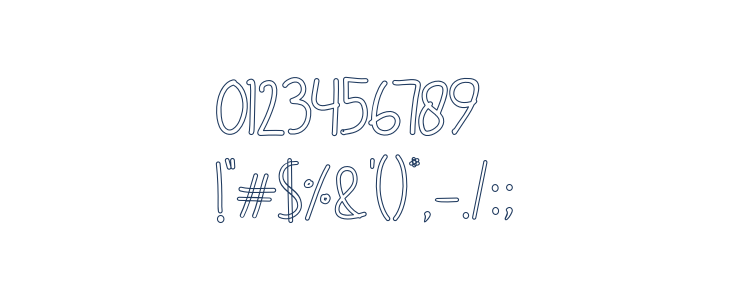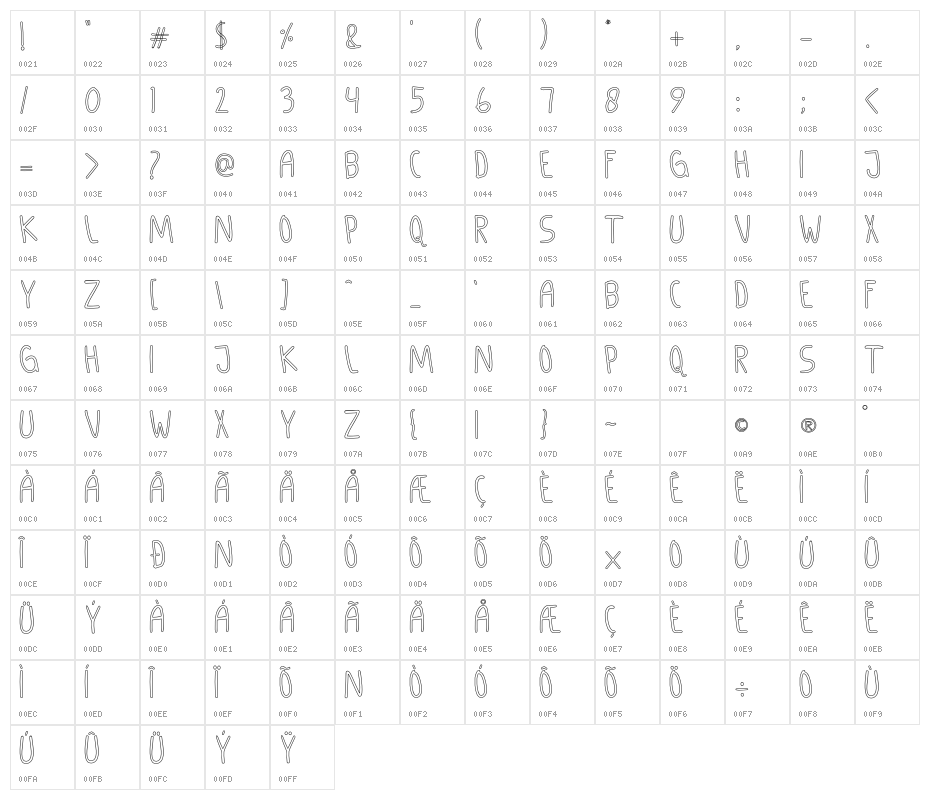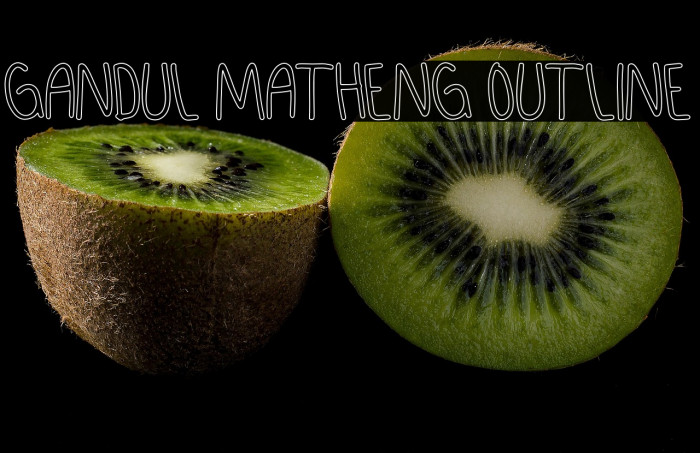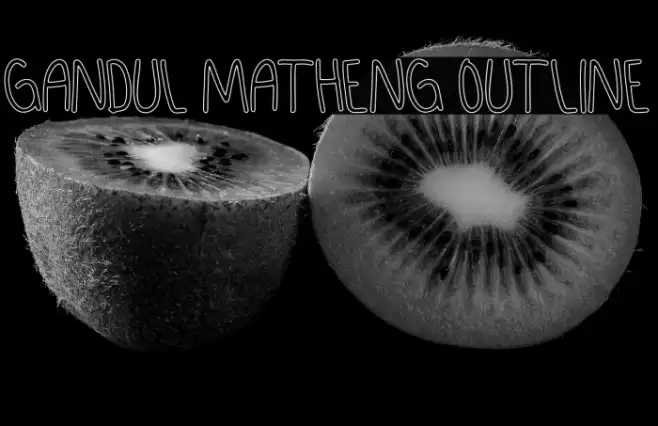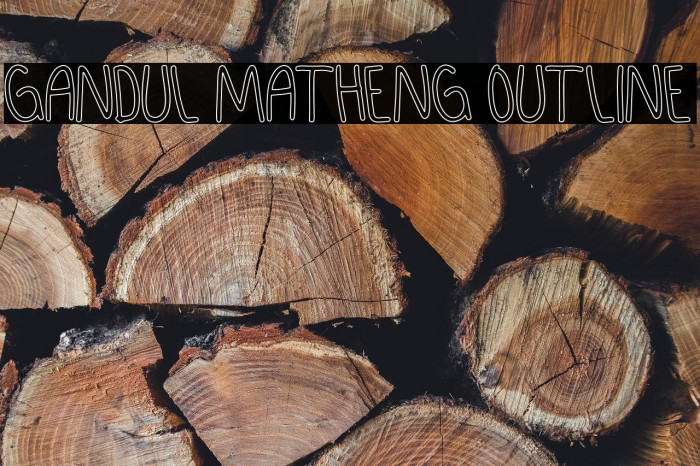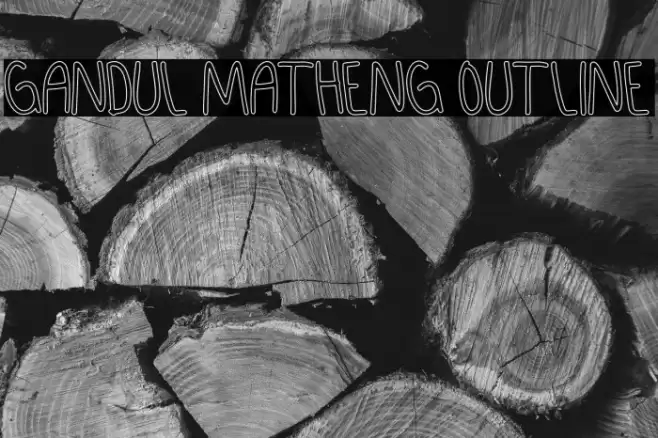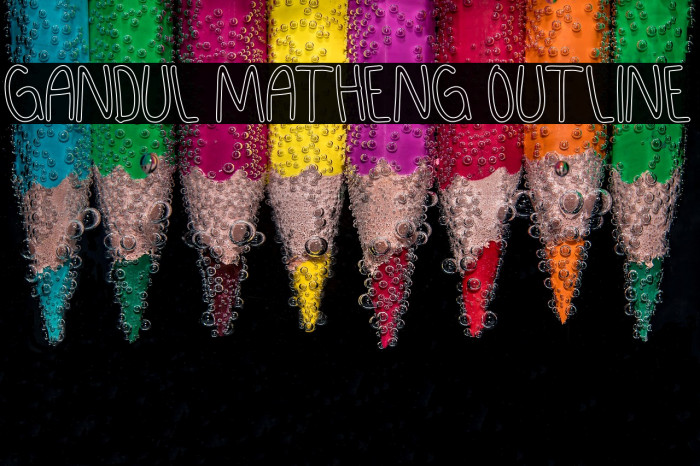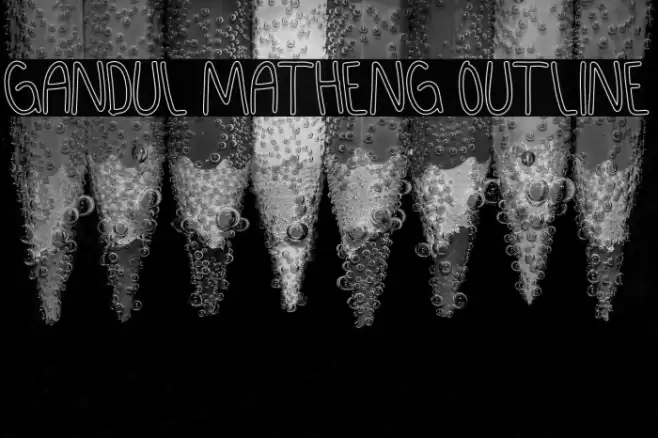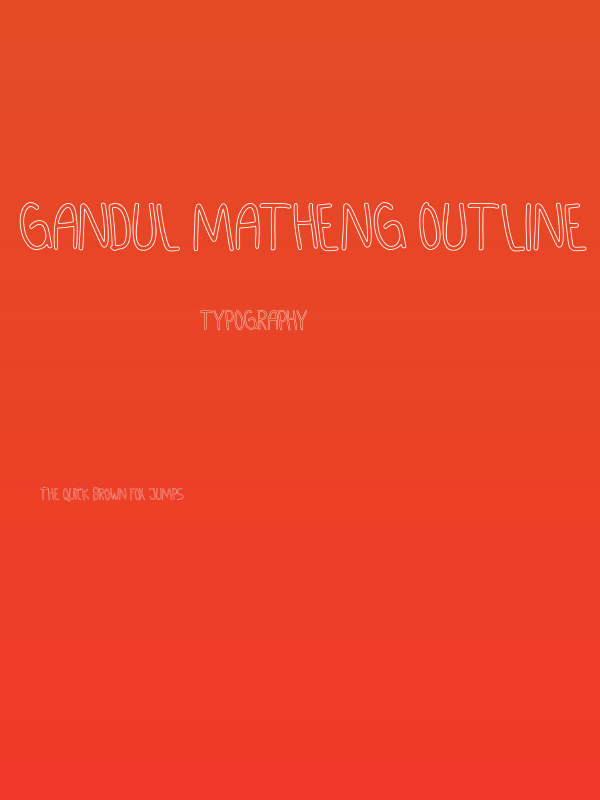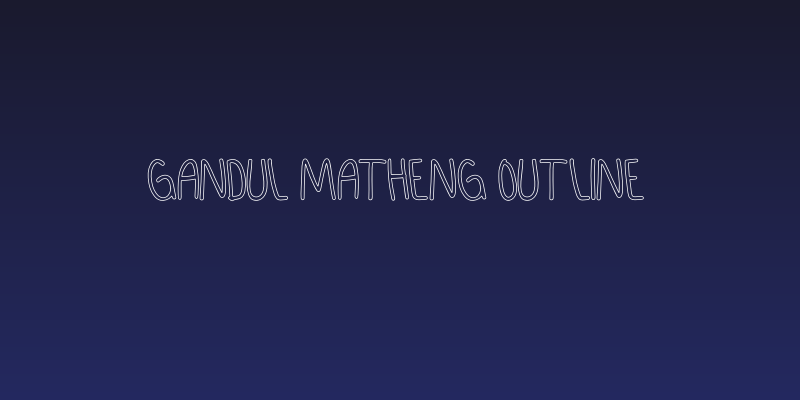
GANDUL MATHENG Outline Font
GANDUL MATHENG Outline Description
This font features a playful and modern outline style, characterized by its hand-drawn appearance. The letters are tall and narrow, with a consistent stroke width that gives it a uniform look. The rounded edges and smooth curves add a friendly and approachable feel, making it suitable for casual and creative projects. The uppercase and lowercase letters maintain a cohesive design, while the numerals and special characters complement the overall aesthetic. The font's outline nature allows for versatility in design, as it can be filled with colors or patterns to enhance visual interest.
| Proposed Projects | Ideal for children's books, playful branding, creative posters, and DIY crafts. |